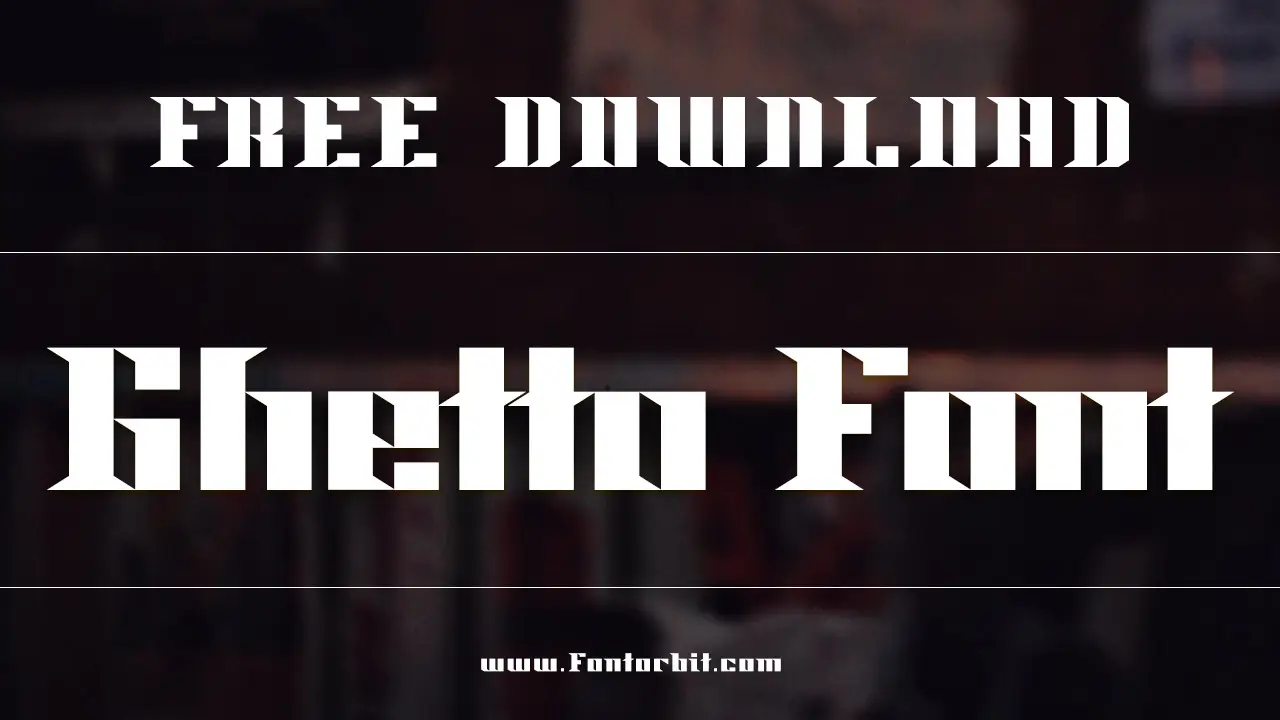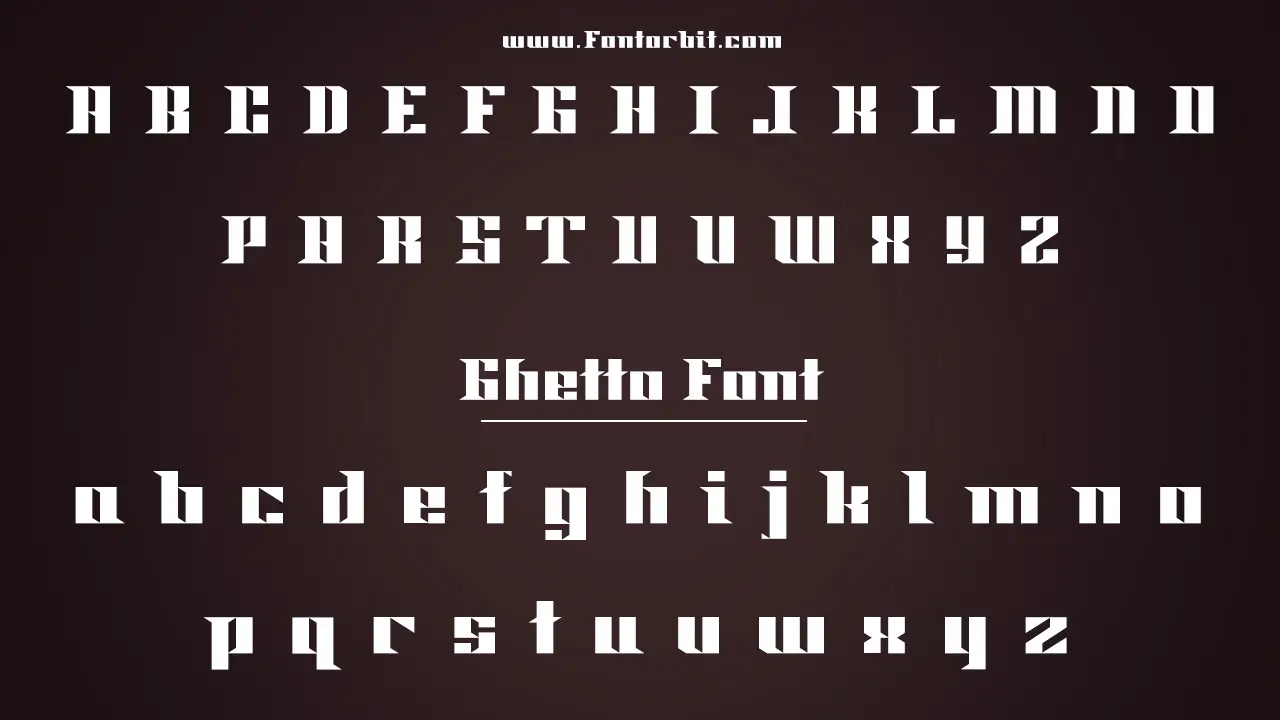
Ghetto Font, designed by Thet Paing Htwe and released on July 6, 2023, is a bold, modern display typeface with a blackletter style. This font blends urban street art influences with traditional lettering.
- Name: Ghetto Font
- Style: Display, Blackletter
- Designer: Thet Paing Htwe
- Type: Display Typeface
Ghetto Font Family Includes
- Ghetto Regular
Where Ghetto Font Is In Use
- Graffiti text and street art designs
- Logos for urban brands or music posters
- Banners and flyers with a strong, bold message
- Website headings and text to evoke an urban vibe
- Printed materials like book covers, templates, and illustrations
- Graffiti-style lettering for creatives and projects with an urban look
- Character designs and creative text in graffiti fonts
- Sans-serif fonts: Pair with modern sans-serif fonts like Montserrat or Raleway for a clean, stylish contrast.
- Geometric fonts: Combine with fonts like Poppins or Avenir for a contemporary and balanced aesthetic.
- Slab serifs: Use with fonts like Roboto Slab for strong, structured text elements.
Ghetto Font is a unique, bold typeface that captures the essence of urban street culture and graffiti style. With its blackletter roots and modern flair, it is perfect for projects that require a strong, edgy design from logos and posters to digital text and creatives. Whether you’re designing flyers, music posters, or website headings, Ghetto Font brings a unique urban look to your creations.
3.What Is The Style Of Ghetto Font?
Ghetto Font is a modern blackletter display typeface, designed to have a graffiti and urban street art feel.